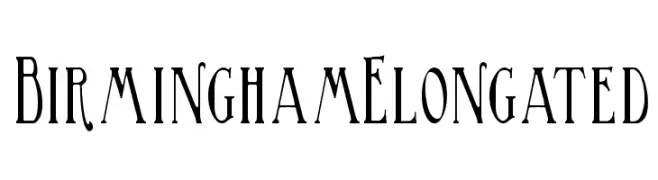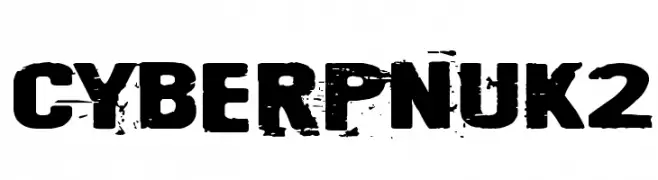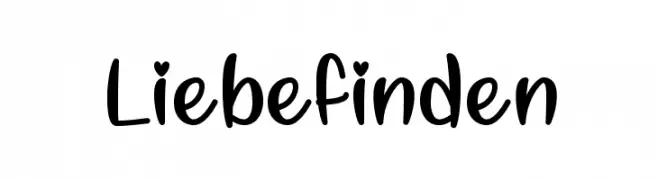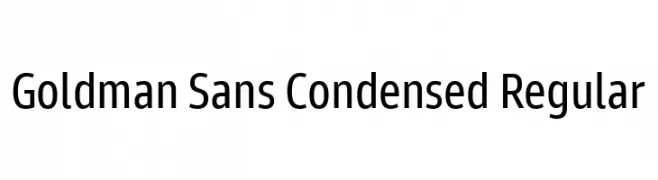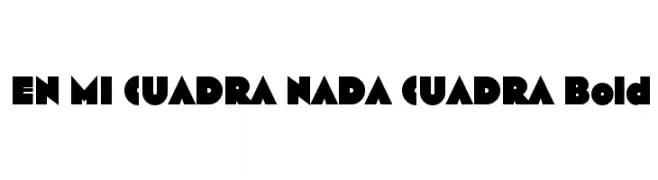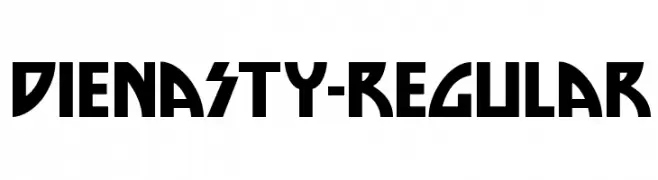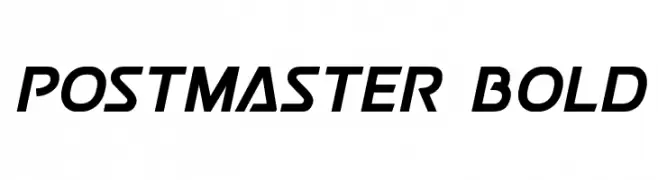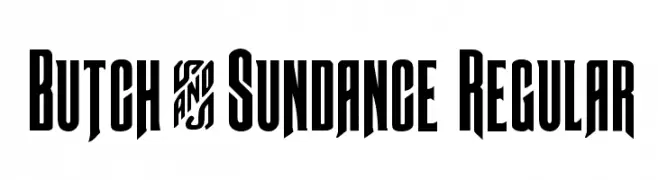
( Font by Sven Stuber - www.superlooper.de )
A modern, geometric font with thin strokes and a minimalist design.
( Fonts by Paul Lloyd )
An elongated, high-contrast serif font with a sophisticated and decorative style.
( www.junkohanhero.com )
A bold, distressed font with a rugged, industrial appearance.
( Misti's Fonts - mistifonts.com/ )
A playful, handwritten font with bold, rounded characters and a whimsical style.
A modern, condensed sans-serif font with a clean and professional look.
( Esteban4058 - disney-atodoritmo.blogspot.com )
A bold, geometric font with angular lines and a strong visual impact.
( Fonts by www.typodermicfonts.com - Ray Larabie )
A bold, angular font with a futuristic and geometric design.
A bold, slanted font with a modern and dynamic style.
A bold, condensed font with a vintage Western style.